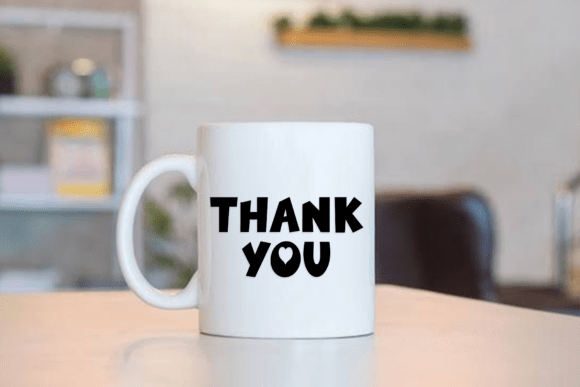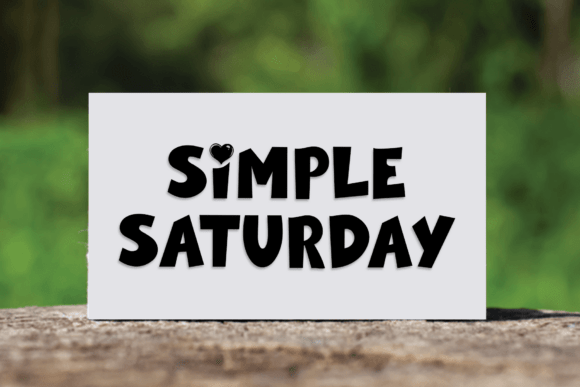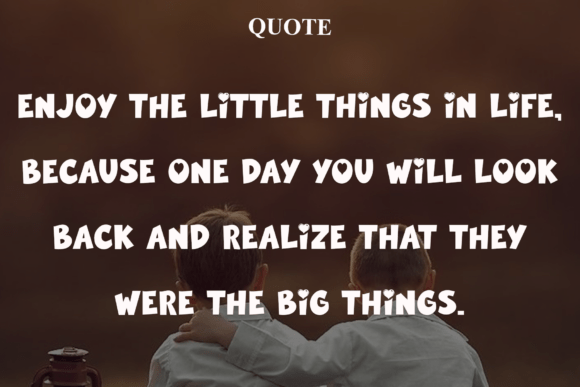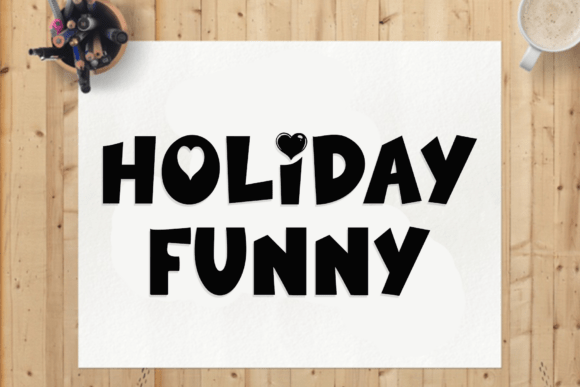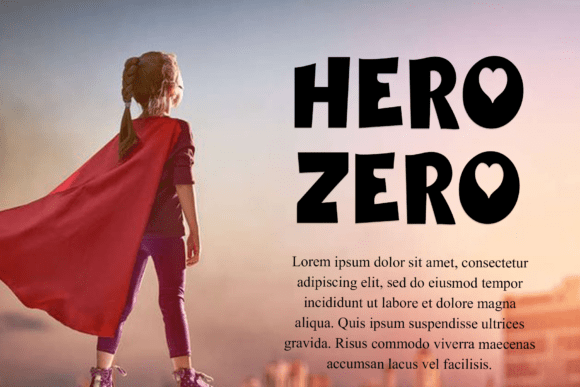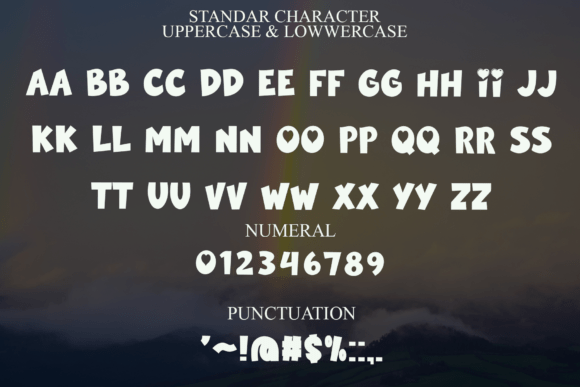
Introducing Boho Vintage Font: The Perfect Blend of Casual Charm and Creative Flair
Are you a designer, crafter, or DIY enthusiast looking for a font that embodies warmth, friendliness, and a touch of playfulness? Look no further than Boho Vintage Font! This delightful font is designed to bring a relaxed and approachable feel to your personal projects, invitations, social media graphics, and more. With its round, playful strokes and charming, hand-drawn aesthetic, Boho Vintage Font is the perfect choice for anyone seeking to add a fun and unique touch to their designs.
The Characteristics of Boho Vintage Font
Boho Vintage Font boasts a range of characteristics that make it an ideal choice for designers and crafters. Its casual and creative vibe is perfect for projects that require a personal touch, such as:
- Personal invitations, like wedding invites, birthday party invites, or baby shower invites
- Social media graphics, including Facebook posts, Instagram stories, and Twitter headers
- DIY projects, like handmade crafts, woodworking, or sewing
- Branding and packaging designs for small businesses or startups
One of the standout features of Boho Vintage Font is its round, playful strokes, which create a relaxed and approachable feel. This font is designed to make your designs feel friendly and inviting, perfect for building connections with your audience.
What Sets Boho Vintage Font Apart?
So, what makes Boho Vintage Font unique? Here are a few key features that set it apart from other fonts:
- Hand-Drawn Aesthetic: The font’s charming, hand-drawn aesthetic adds a fun and unique touch to any design, making it perfect for designers and crafters who want to add a personal touch to their work.
- Casual and Creative: Boho Vintage Font has a casual and creative vibe that’s perfect for personal projects, social media graphics, and DIY designs.
Tips for Using Boho Vintage Font
To get the most out of Boho Vintage Font, here are a few tips to keep in mind:
- Pair it with Other Fonts: Boho Vintage Font pairs well with other fonts, especially those with a bold or serif style. Experiment with different combinations to find the perfect match for your design.
- Use it for Headings and Titles: Boho Vintage Font is perfect for headings and titles, where its playful and creative vibe can shine.
- Add Texture and Patterns: To add depth and interest to your design, consider adding texture and patterns to your Boho Vintage Font text.
Boho Vintage Font is a versatile and charming font that’s perfect for designers, crafters, and DIY enthusiasts. With its casual and creative vibe, round playful strokes, and hand-drawn aesthetic, it’s ideal for adding a personal touch to your designs. Whether you’re working on a personal project, social media graphic, or DIY design, Boho Vintage Font is sure to bring a touch of warmth and friendliness to your work.